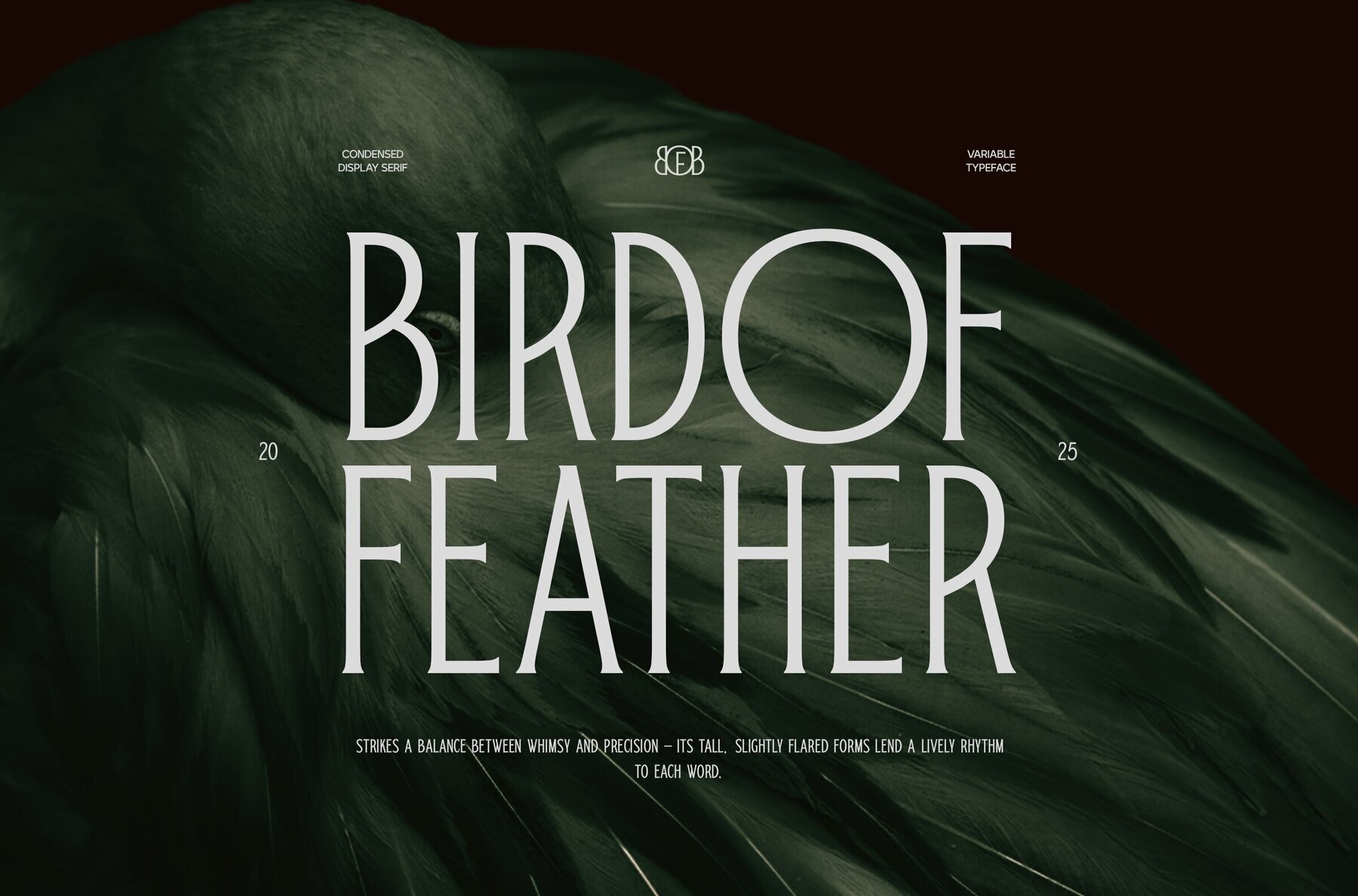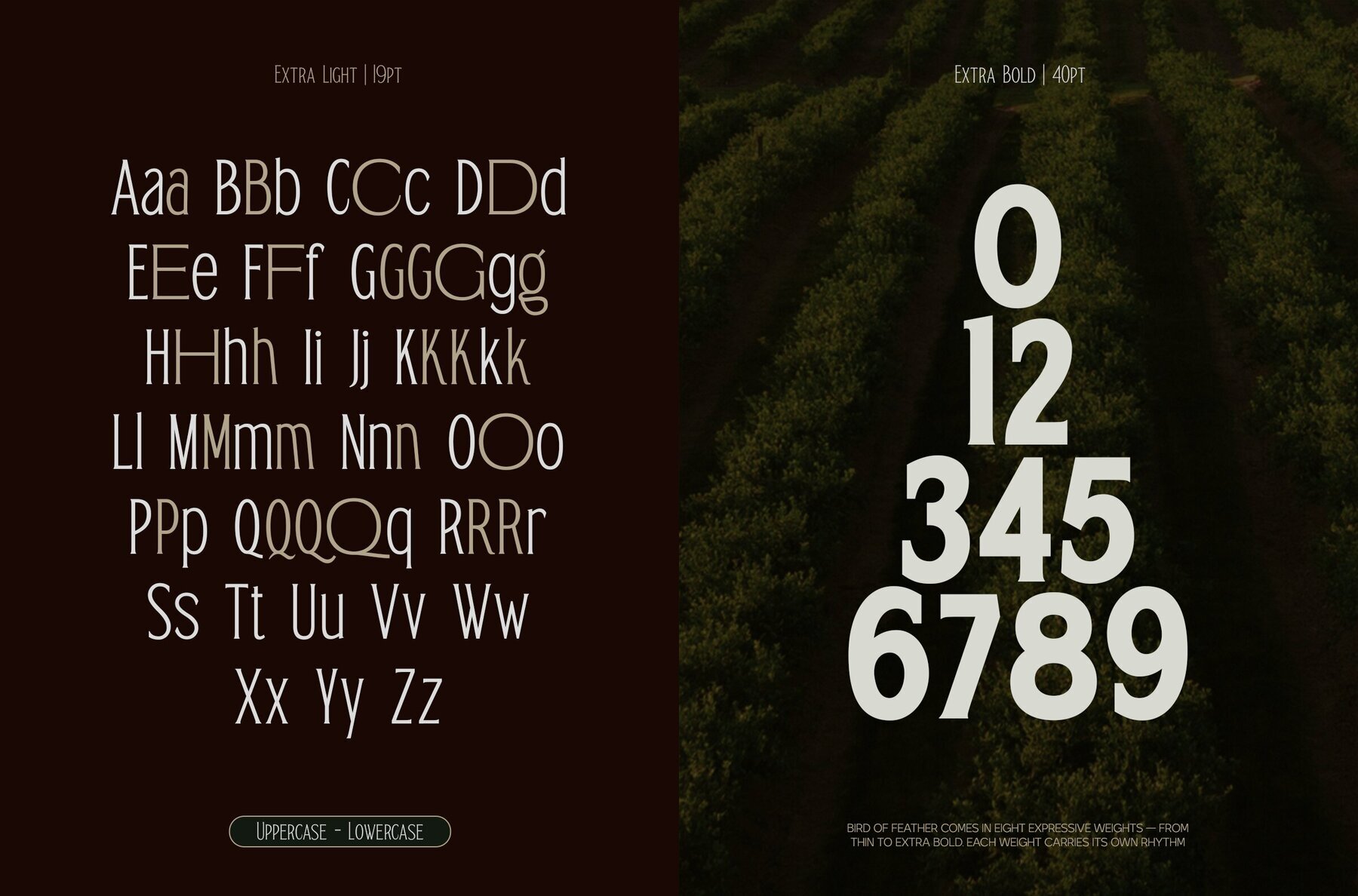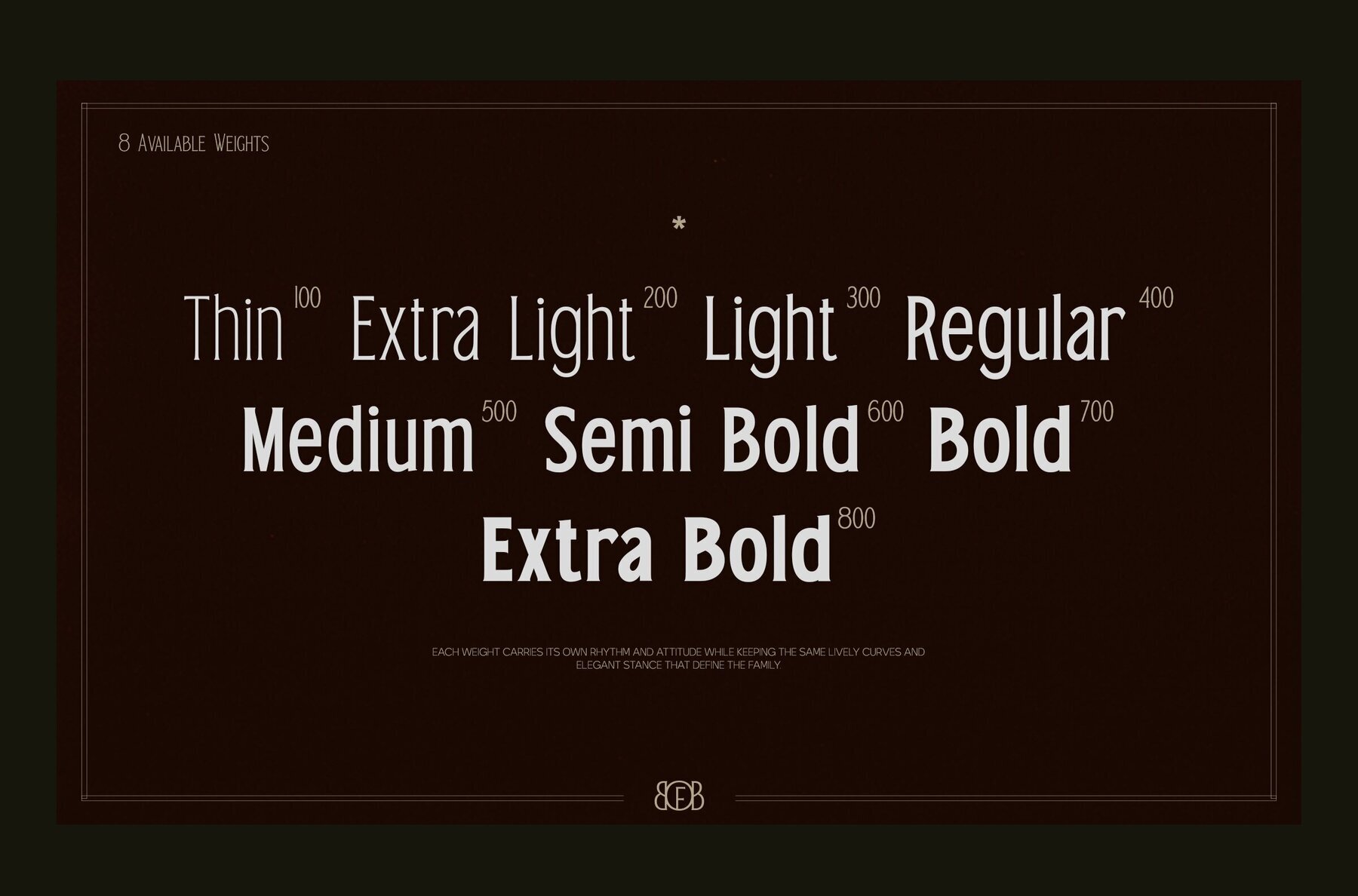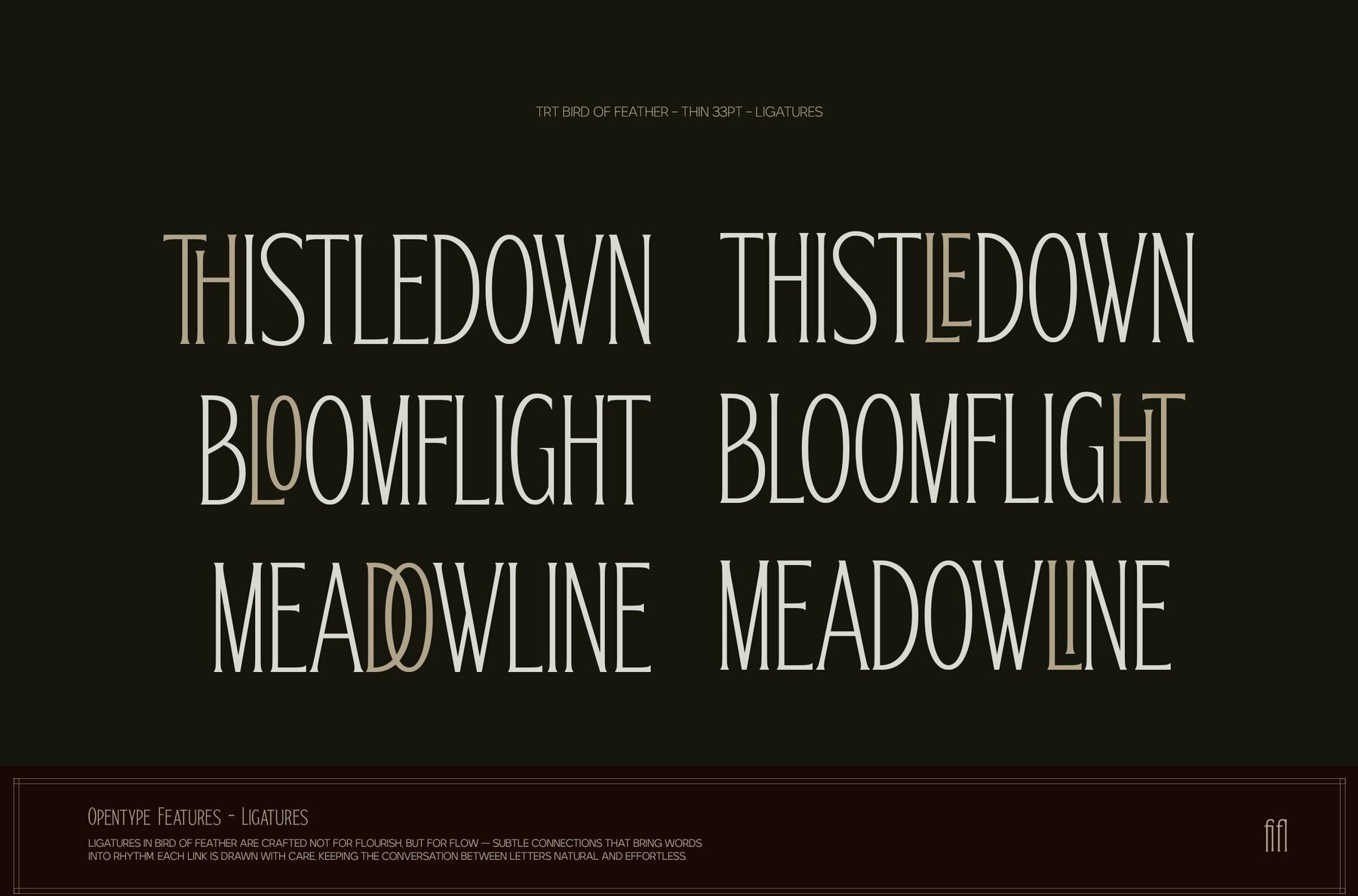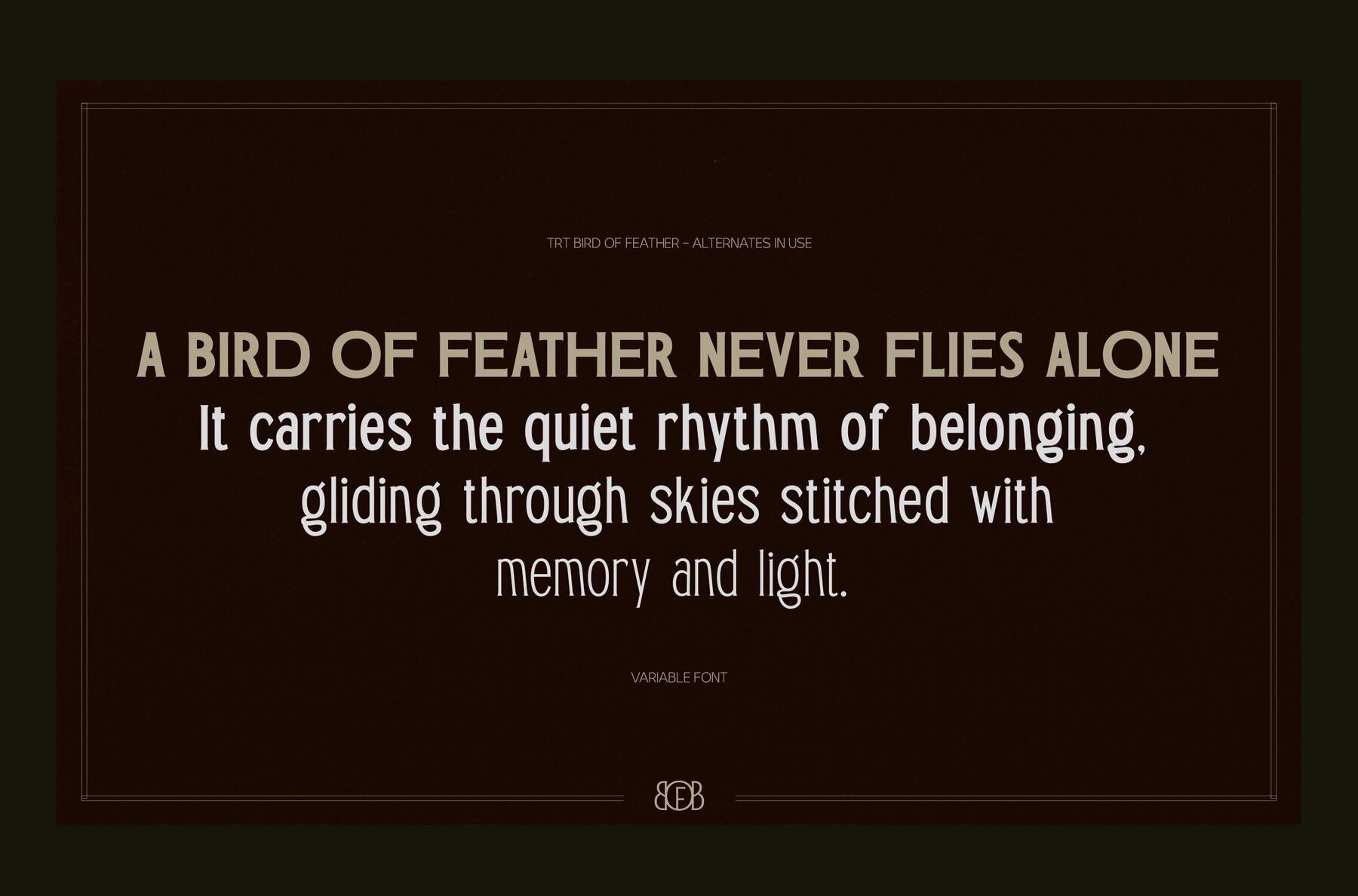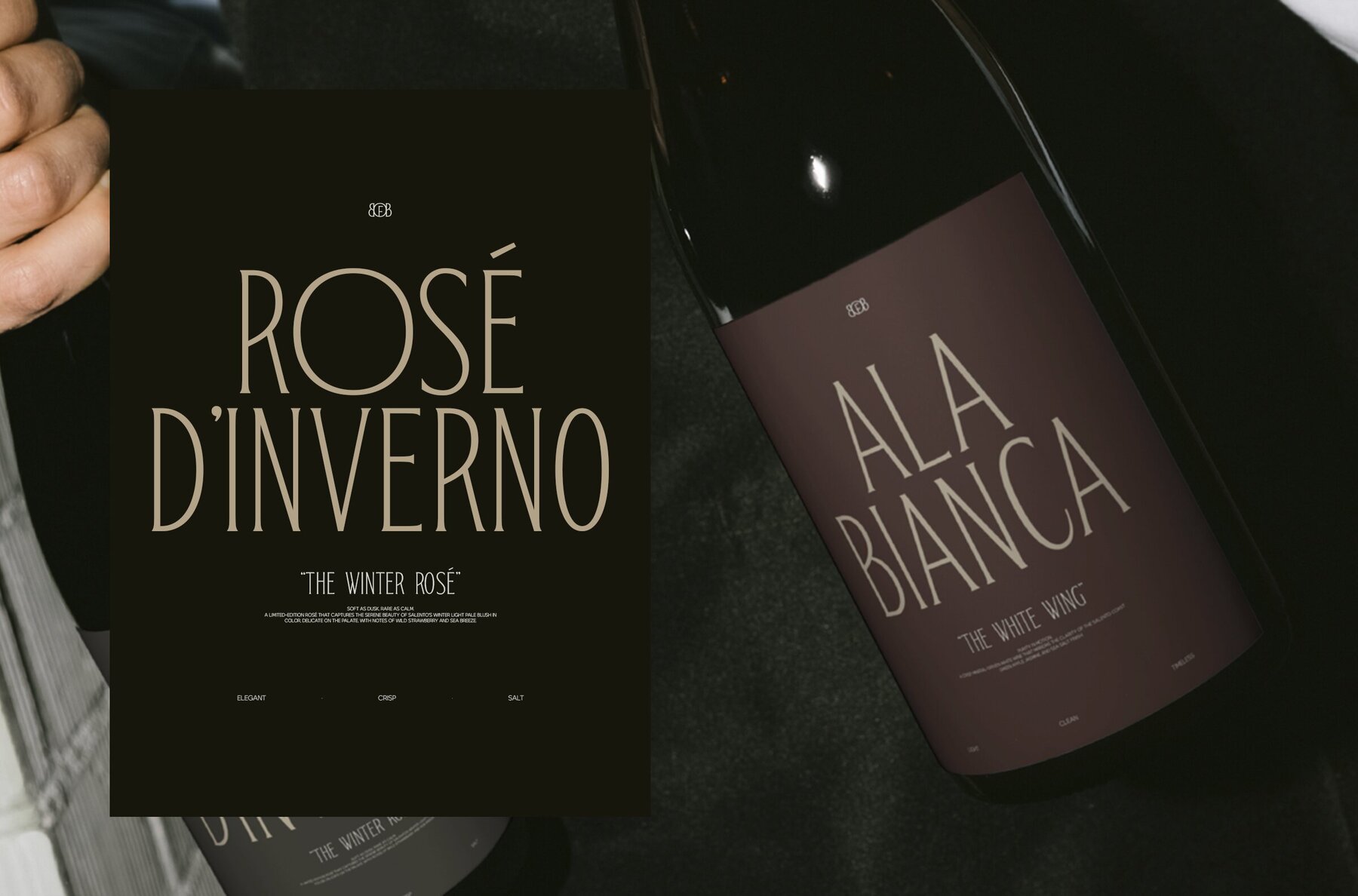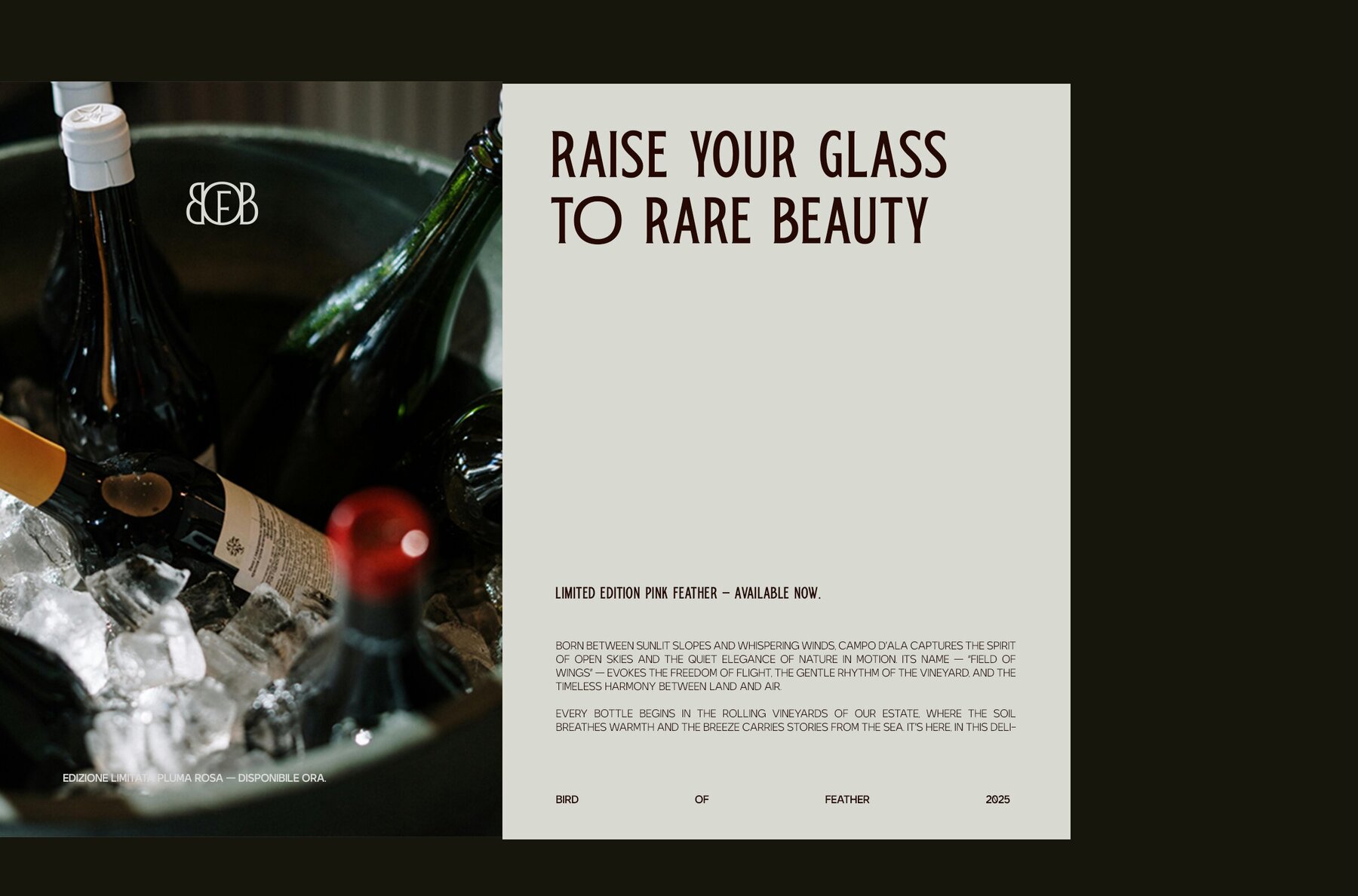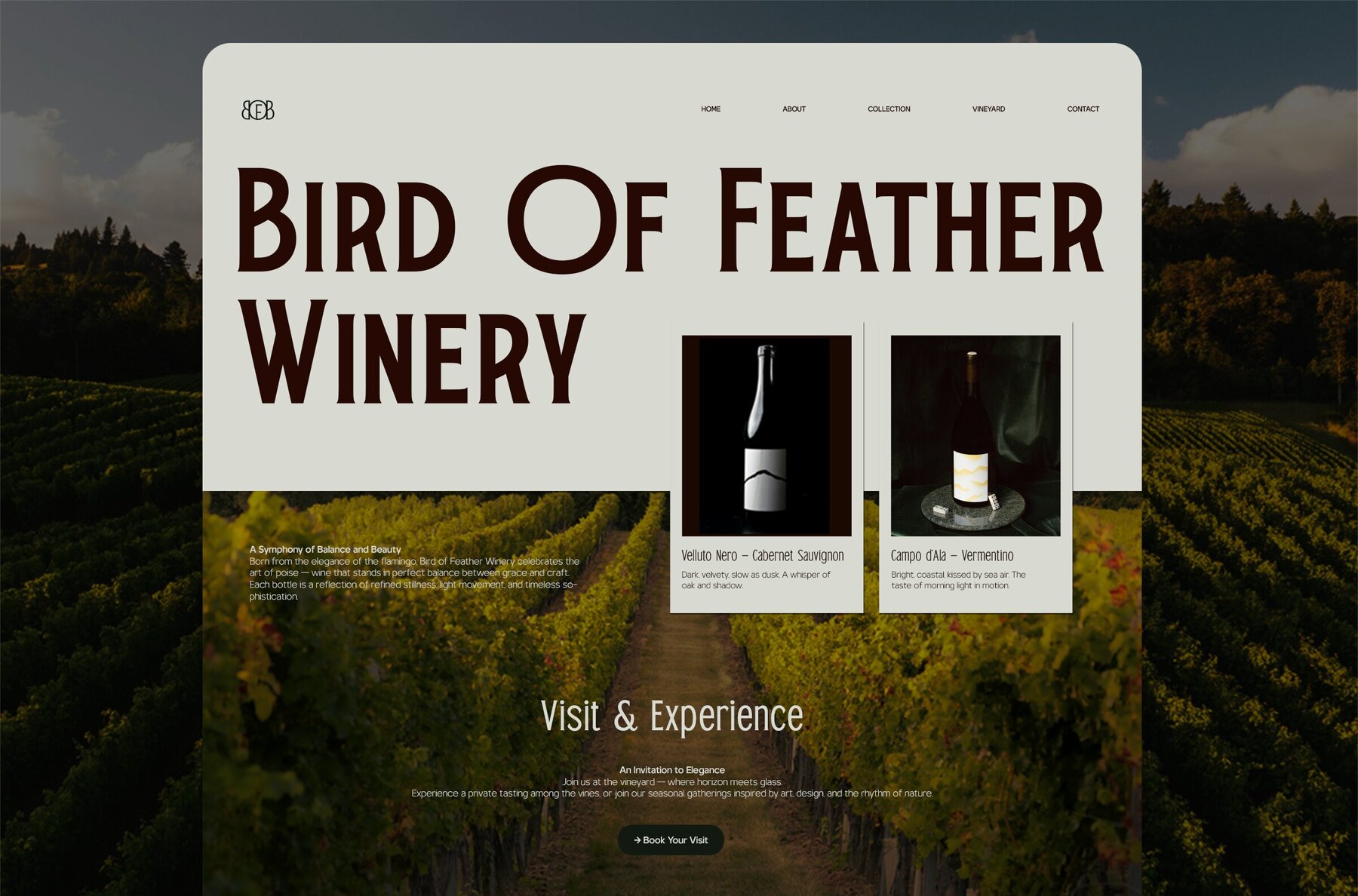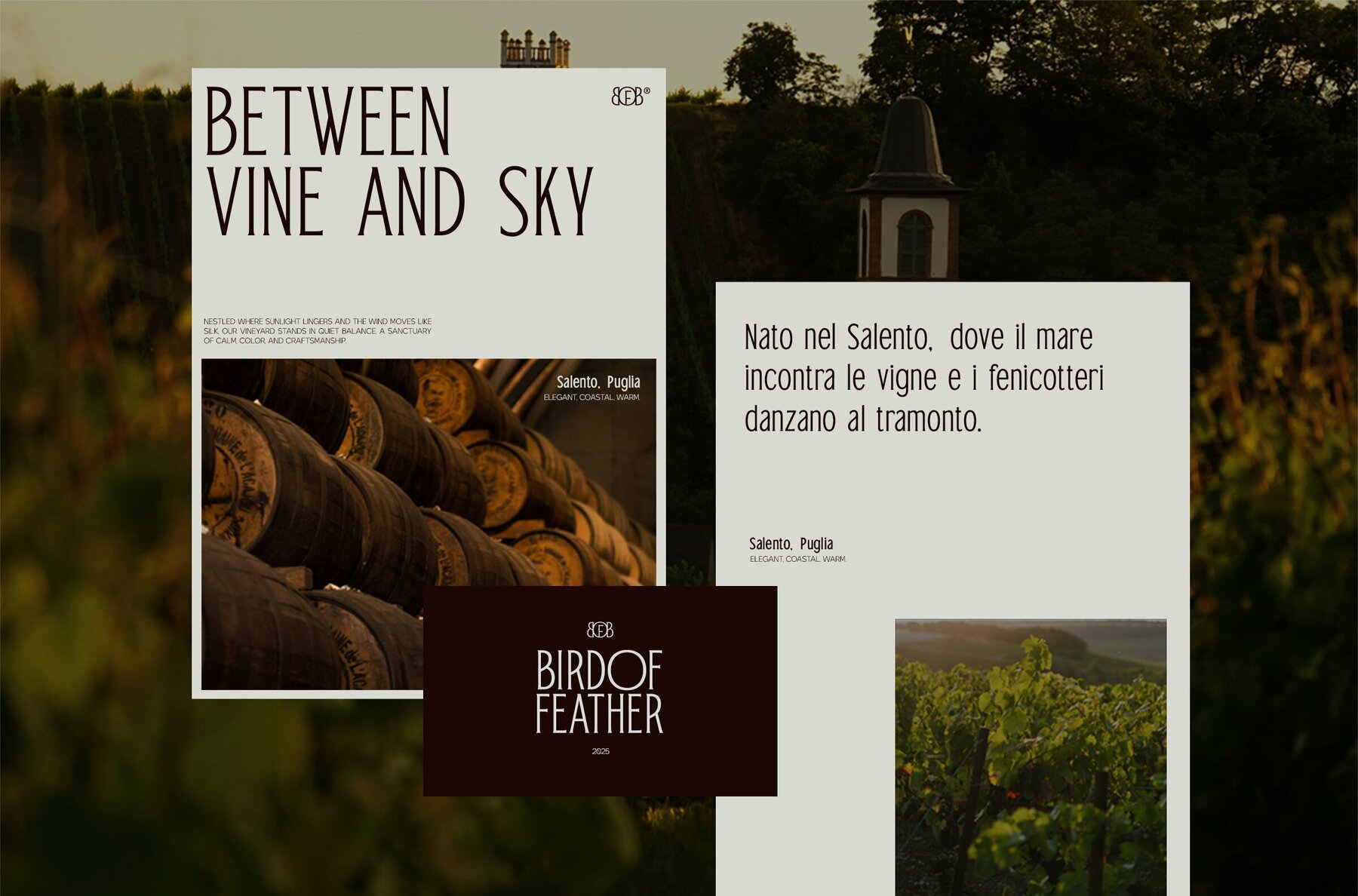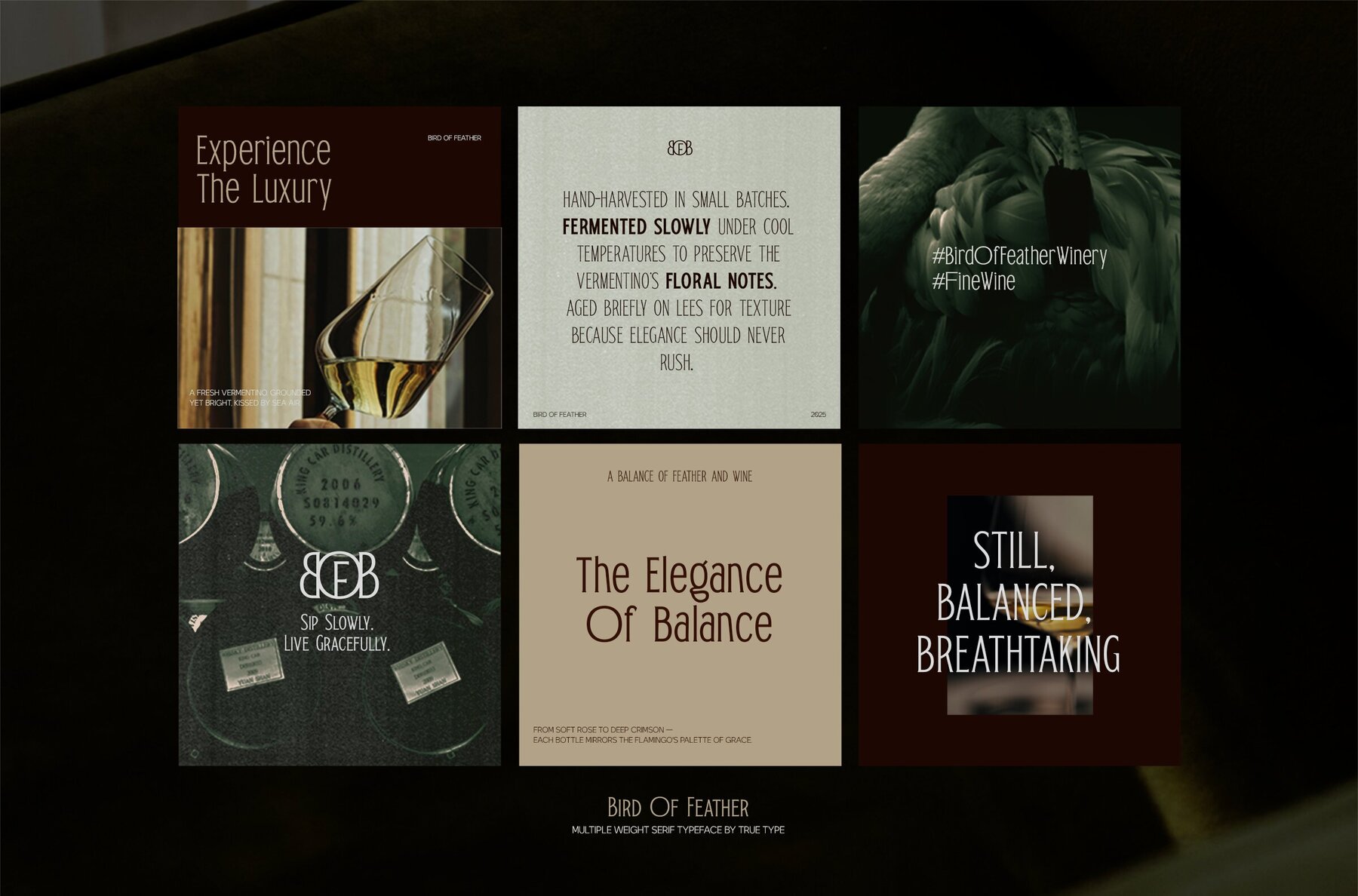
TRT Bird of Feather Font
TRT Bird of Feather is a refined serif typeface that seamlessly combines timeless elegance with contemporary finesse. Designed with meticulously crafted serifs and balanced proportions, this font exudes sophistication and clarity across a wide spectrum of creative applications. Its graceful curves and moderate contrast make it a versatile choice for editorial layouts, branding, book covers, logos, and luxury packaging. Whether employed in headlines or extended text, TRT Bird of Feather provides a unique voice that is both dignified and expressive. This typeface merges the classic roots of serif typography with a modern design sensibility, thriving equally in both print and digital environments. Designed for those who value detail, character, and visual storytelling, TRT Bird of Feather is more than a font—it is a typographic journey. With TRT Bird of Feather, elevate your message with poise and individuality.TRT Bird of Feather: Elegant Serif Font with Modern Sensibility